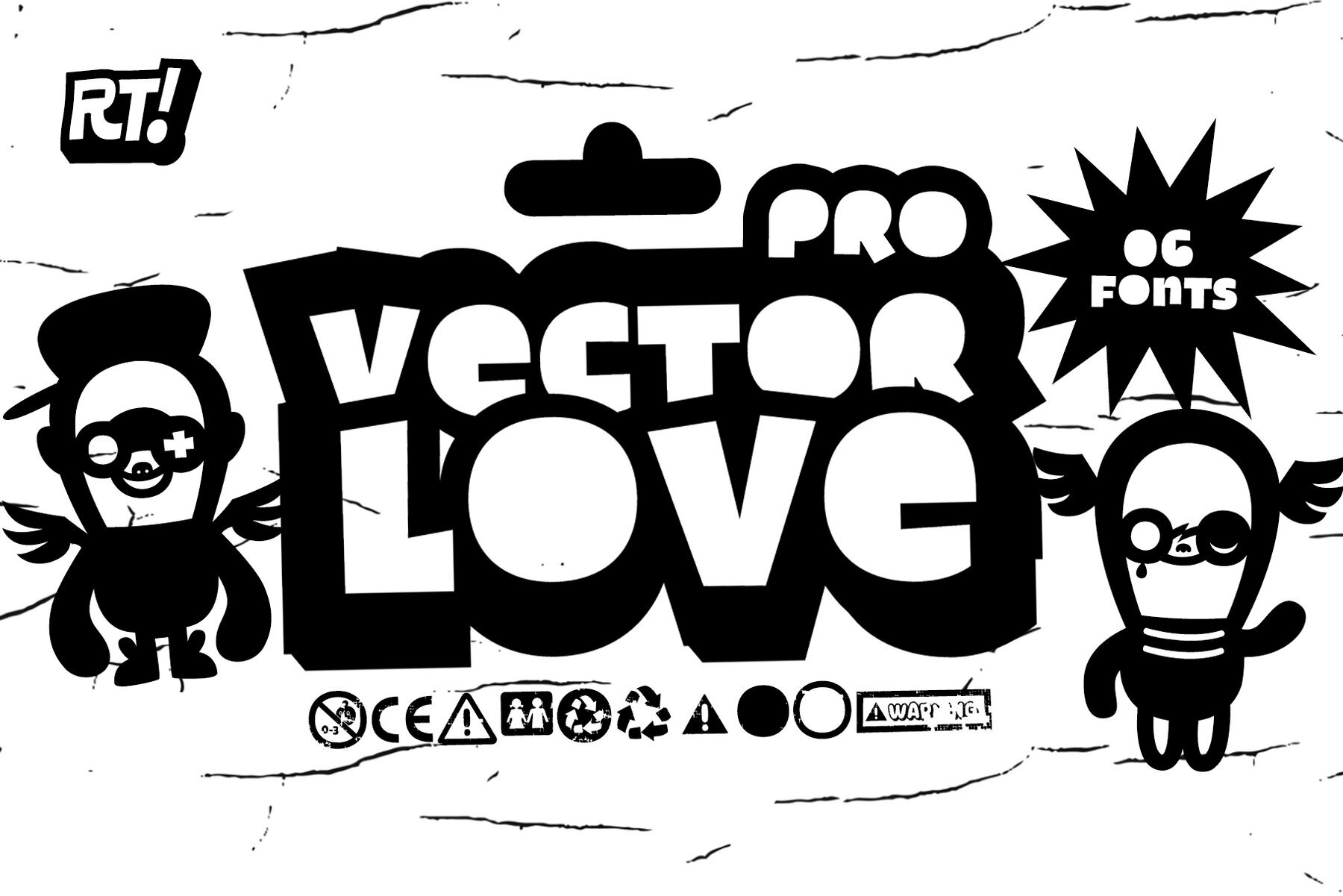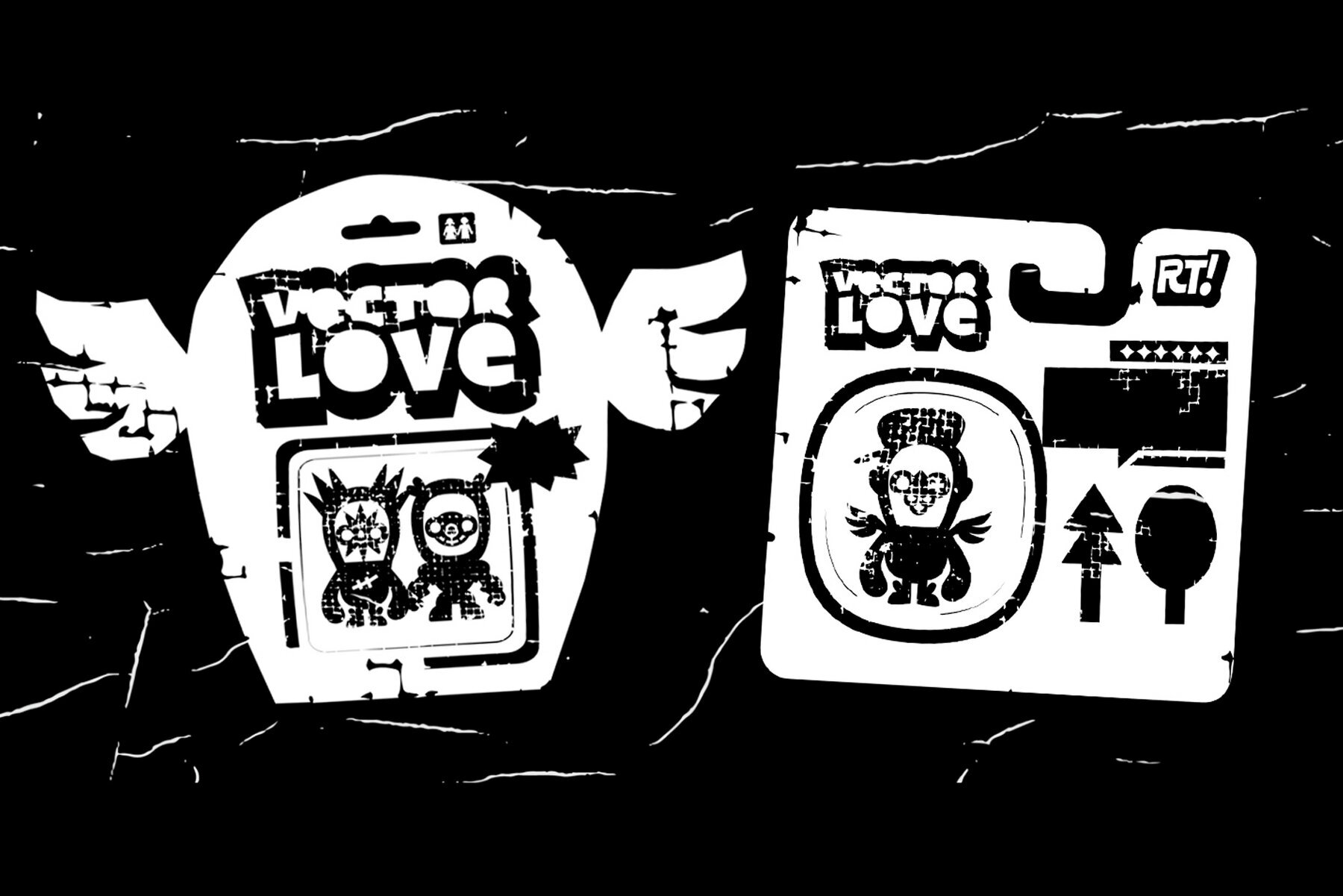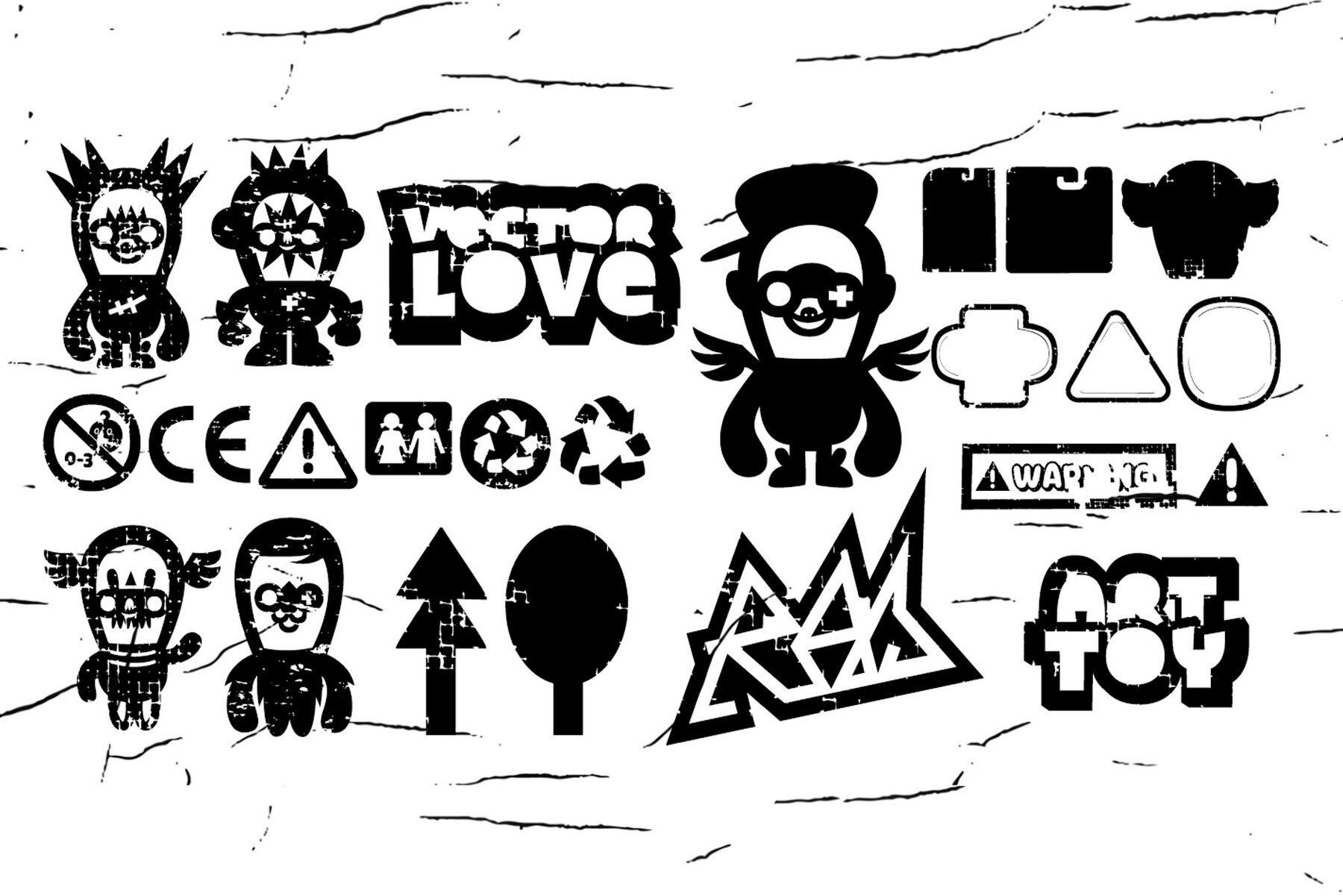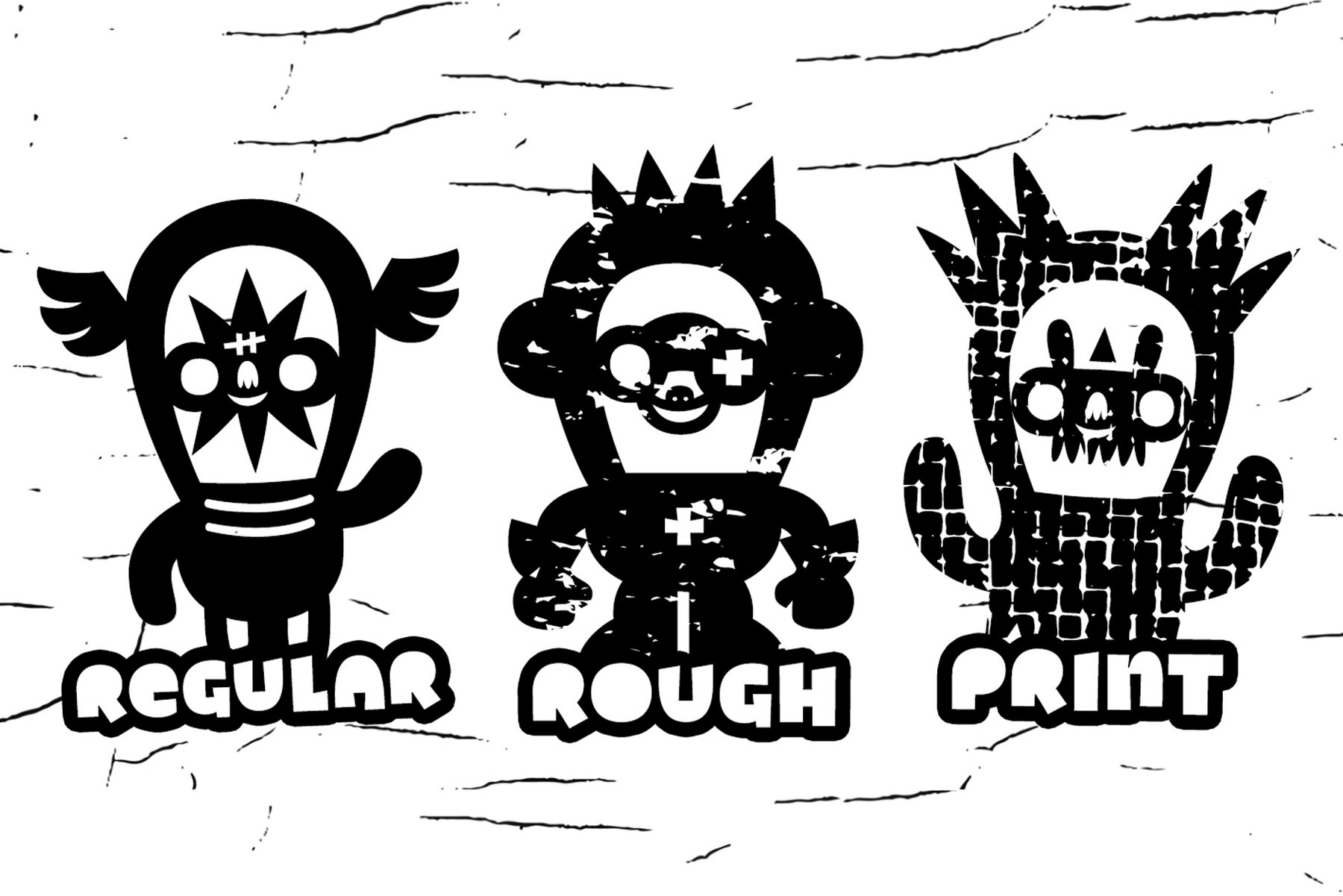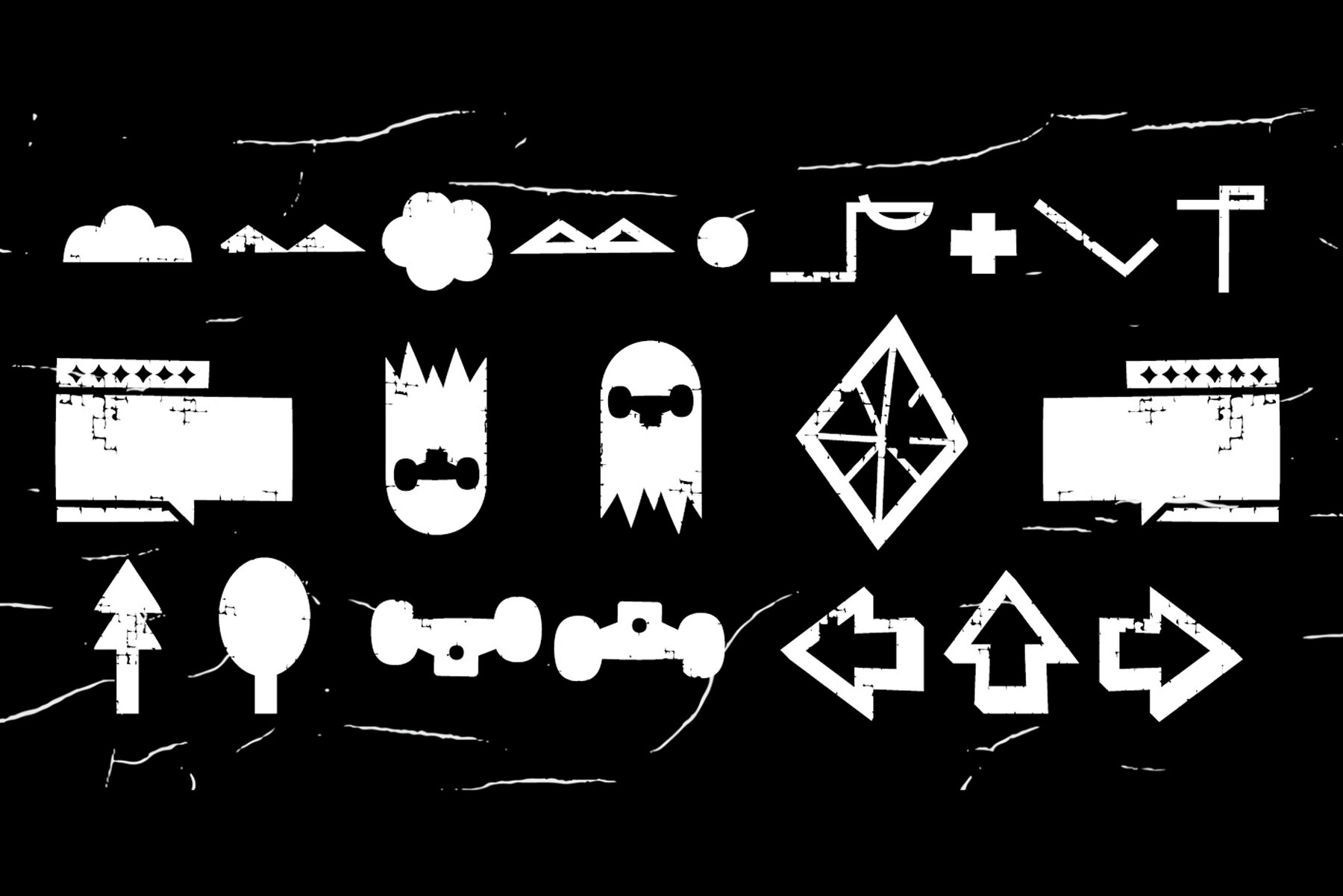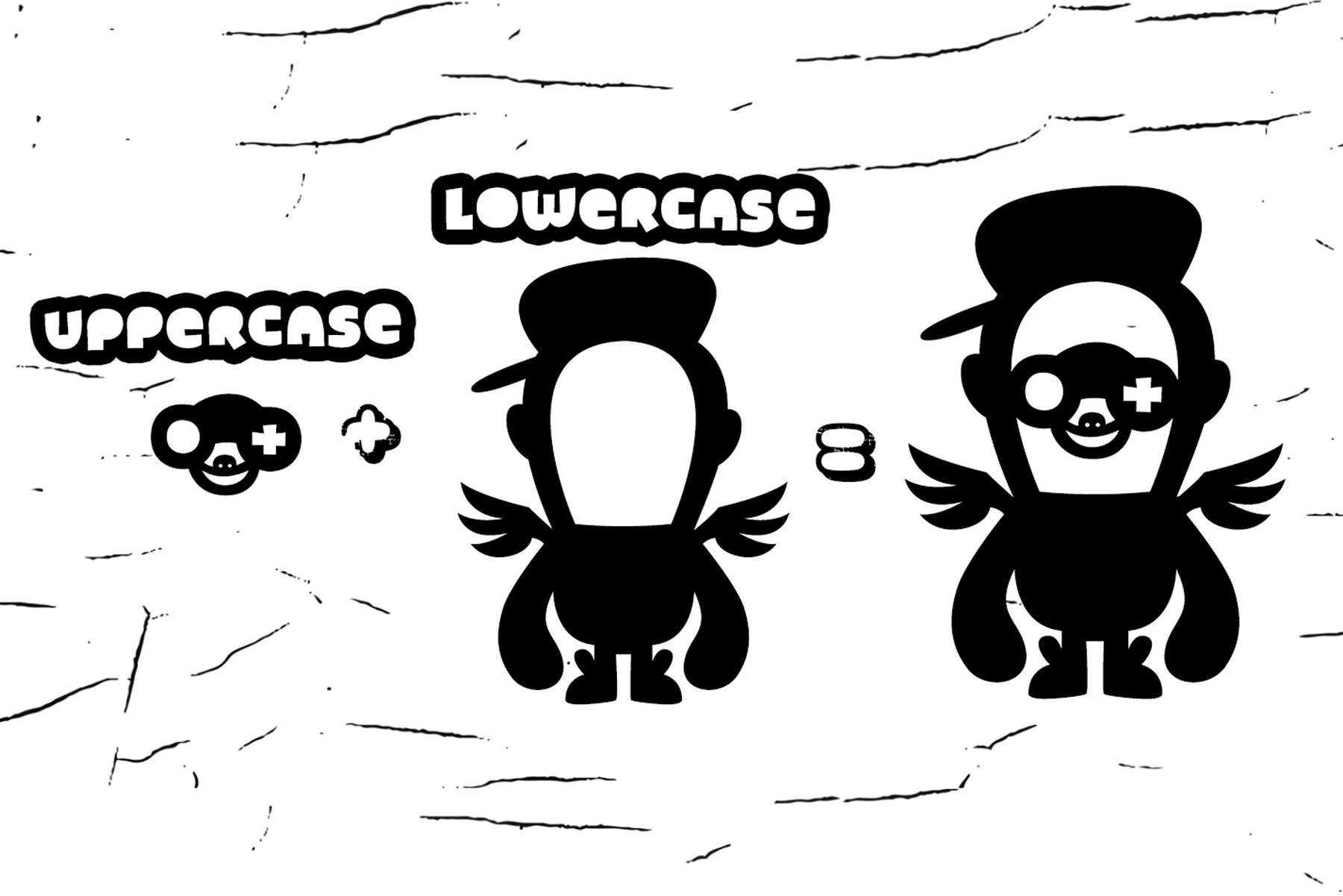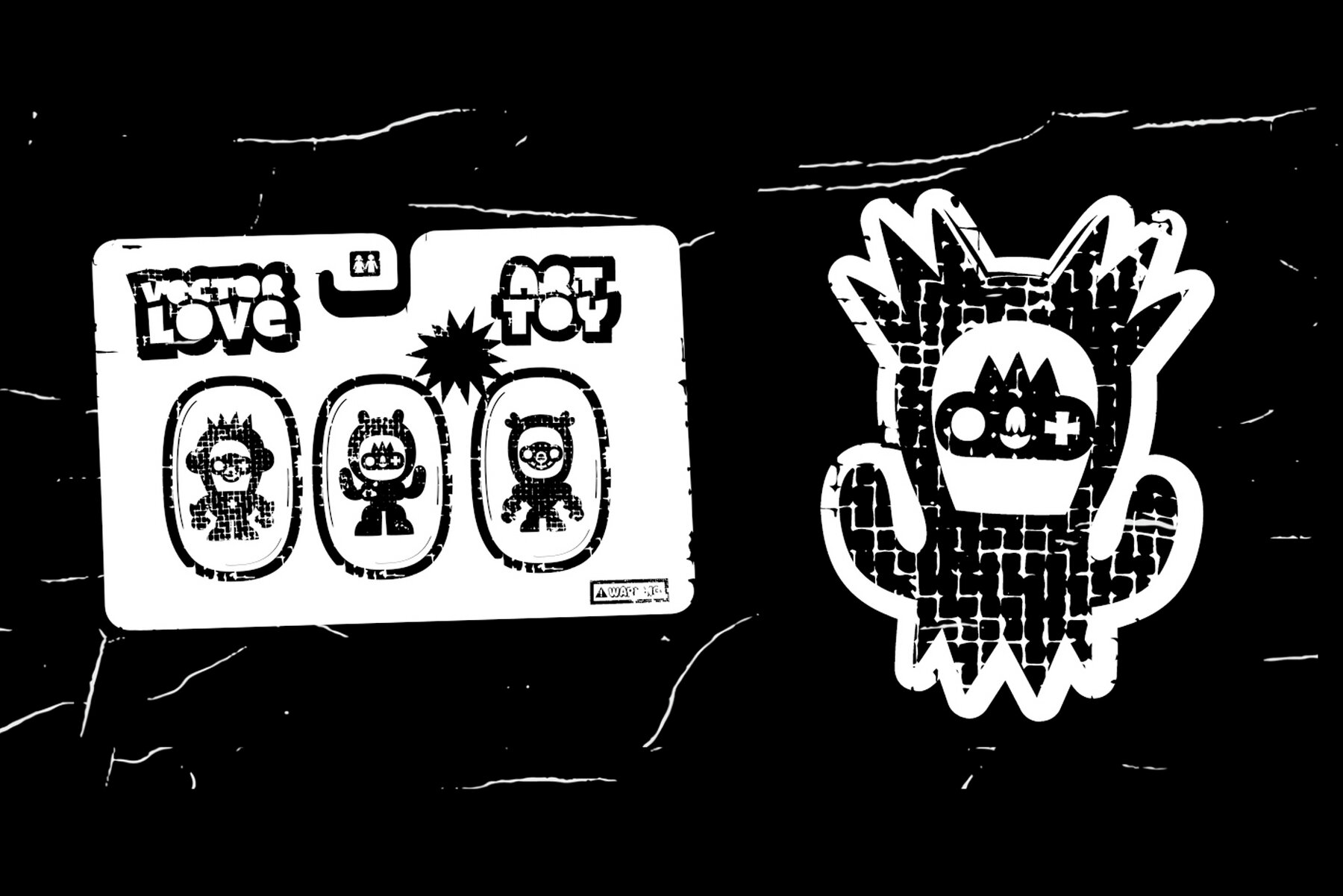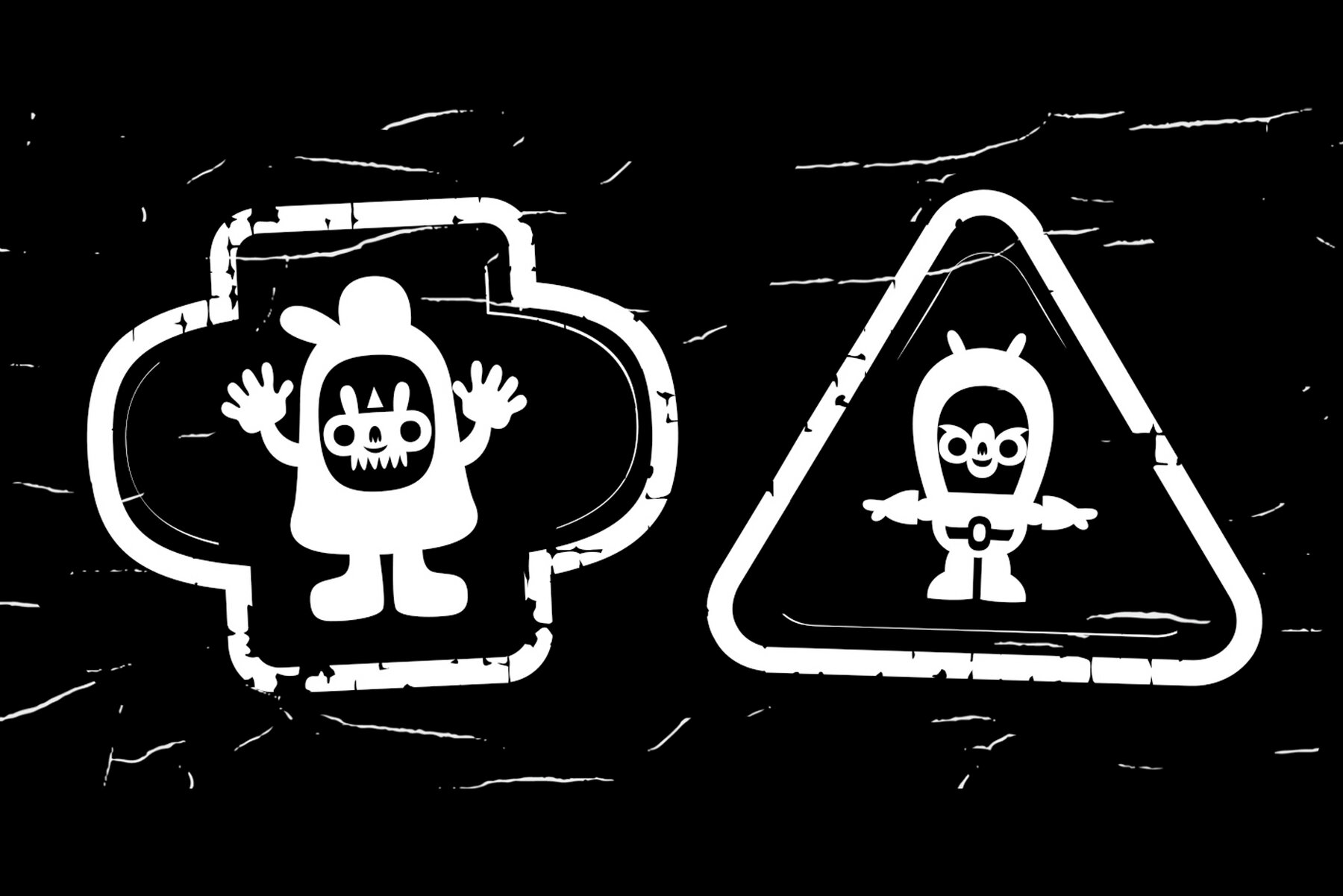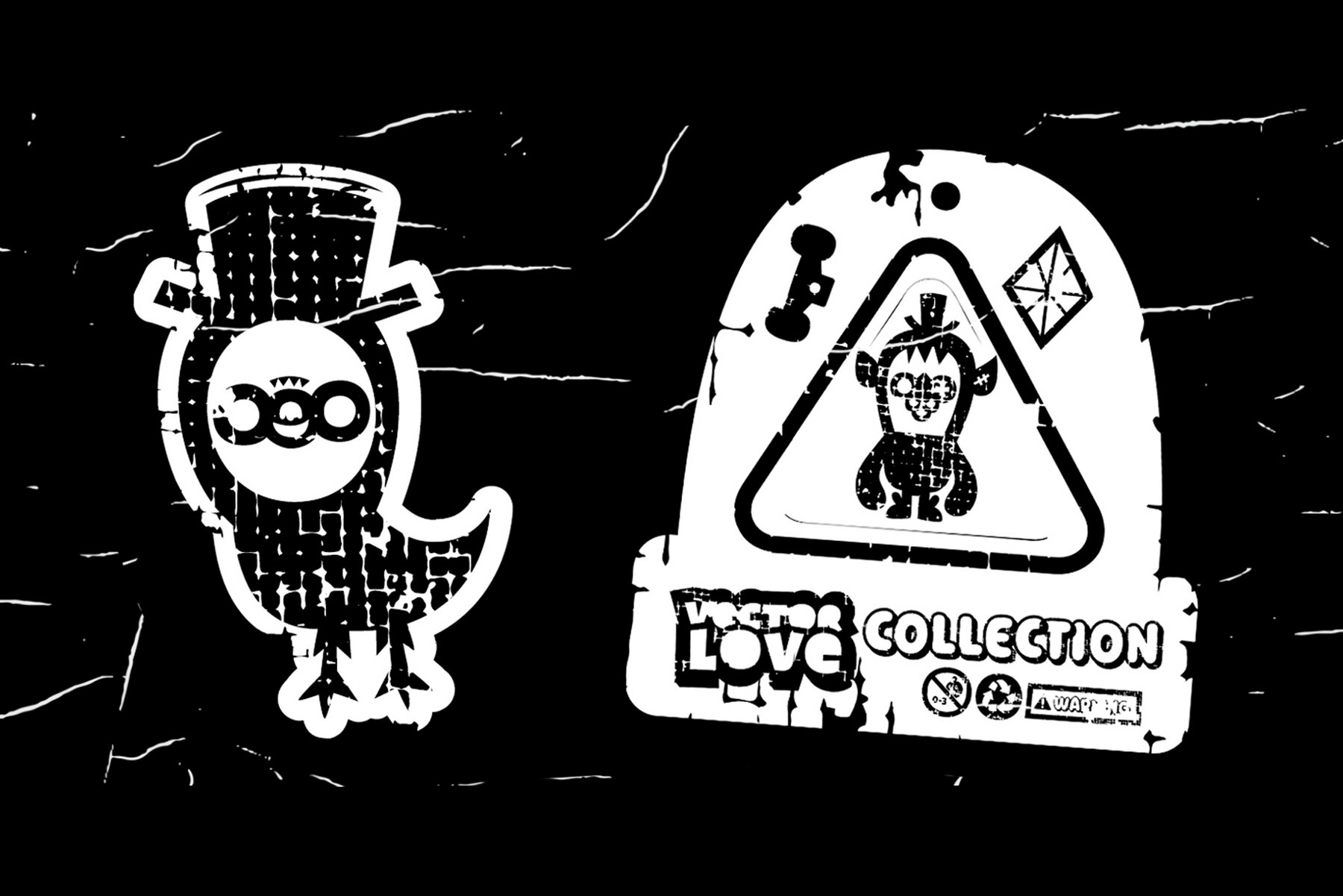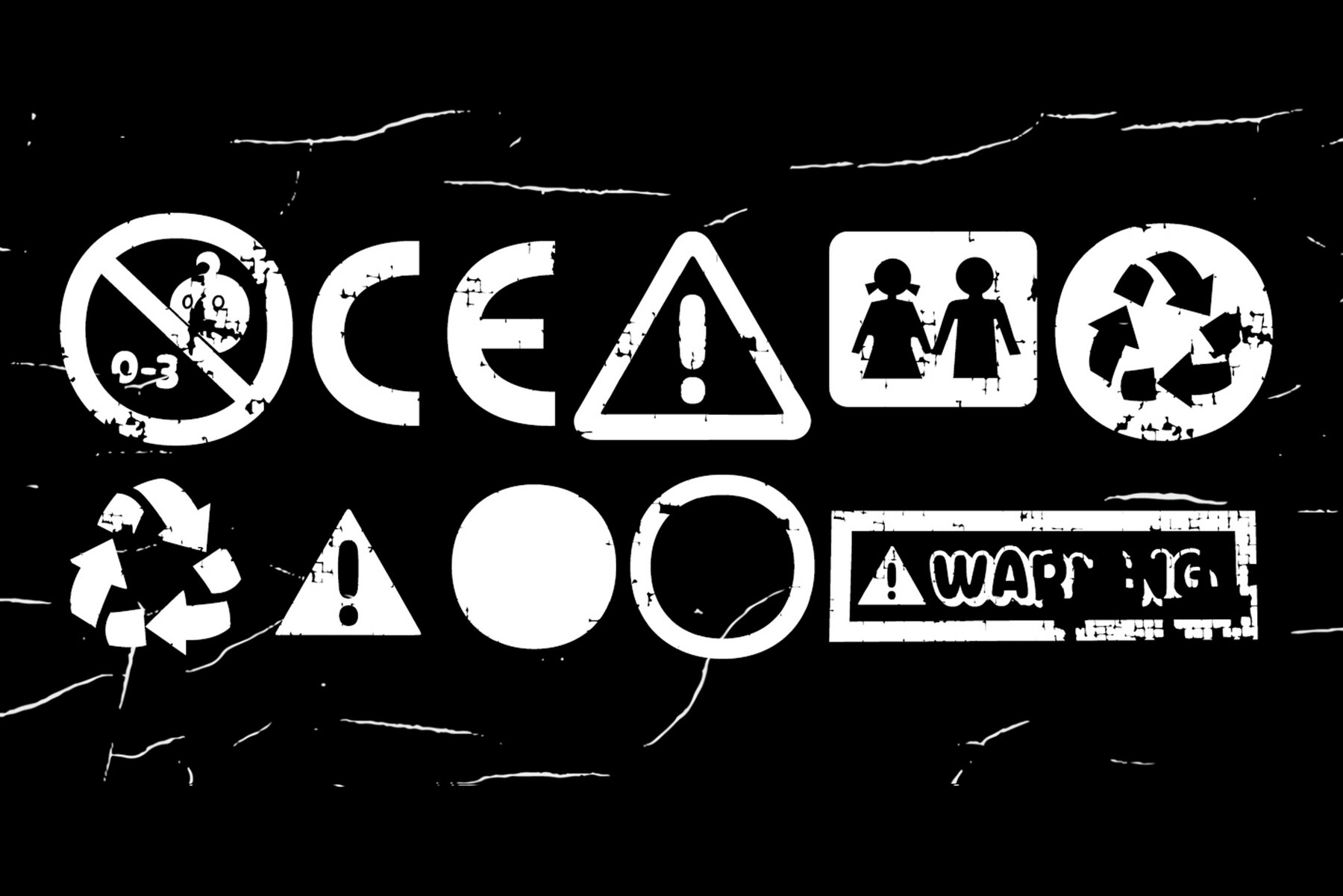
Vectorlove Pro Font
Vectorlove Pro is an enhanced version of the original "Vectorlove" from 2012, now featuring 6 unique styles: Regular, Rough, Print, and three packaging variants. This diversified font set offers extensive creative flexibility, ideal for designing T-shirts, art toy boxes, and decorative items. With its varied styles, Vectorlove Pro allows for a wide range of design possibilities, ensuring your projects stand out.
Each style in Vectorlove Pro brings its distinctive flair, whether it's the clean lines of the Regular version or the textured finish of Rough and Print styles. The additional packaging styles provide numerous options for creating eye-catching promotional materials and product packaging. Embrace the versatility of Vectorlove Pro to craft compelling graphics and elevate your design work to new heights.